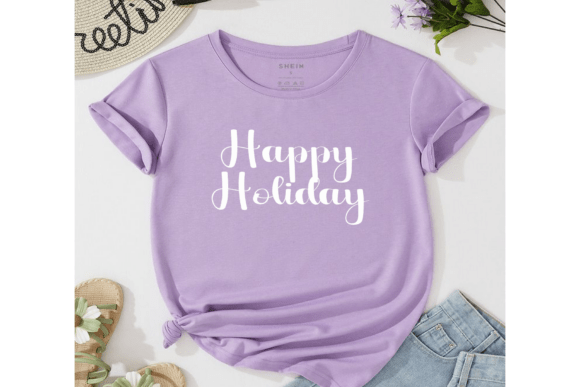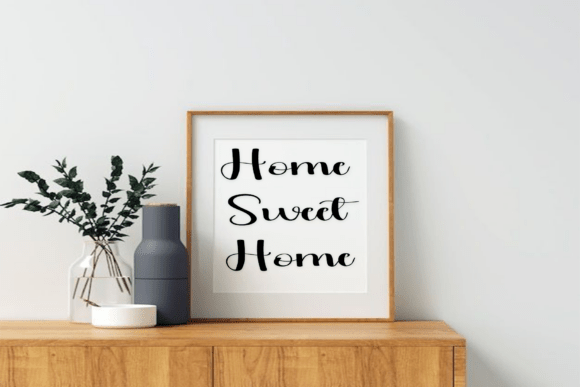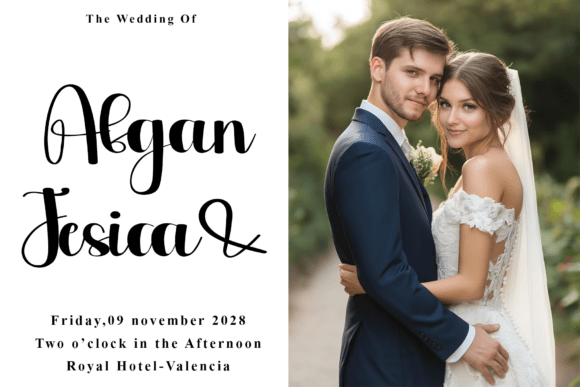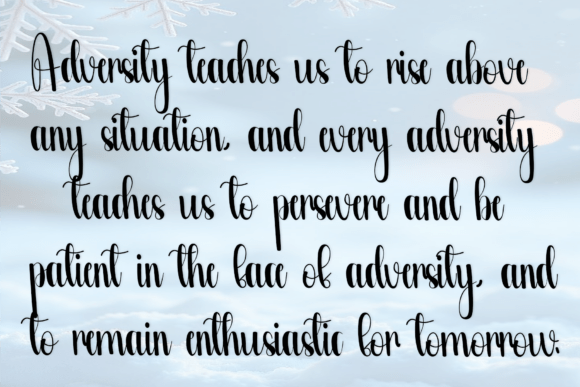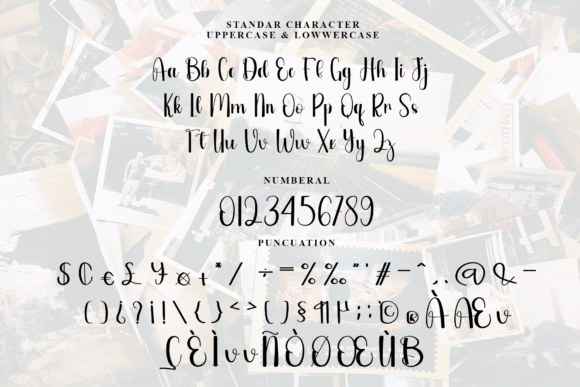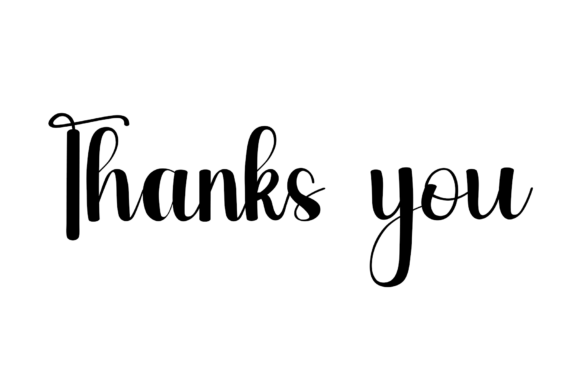
The Perfect Blend of Elegance and Authenticity
Have you ever found yourself sitting in a quaint little café, sipping a warm cup of coffee, and staring at the beautiful handwritten script on the menu board? The way the words flow effortlessly, like a gentle stream, has a way of captivating your attention and drawing you in. That’s the kind of magic that the Homestay Font brings to the table.
This stunning modern handwritten script font is designed to evoke a sense of sophistication and elegance, making it perfect for personal branding, photography watermarks, luxury wedding stationery, and any project that requires a touch of luxury. As a designer, you’ll appreciate the versatility and uniqueness of Homestay Font, which can add a personal touch to your designs and set you apart from the rest.
Key Features of Homestay Font
- Unique Characteristics: This font features a warm, inviting aesthetic, perfect for creating a welcoming atmosphere in hospitality and travel-related designs.
- Font Styles: The font family includes multiple styles, including Regular, Bold, Italic, and Bold Italic, offering versatility for various design needs.
- Language Support: Homestay Font supports multiple languages, including English, Spanish, French, German, Italian, and more, making it a great choice for global brands and businesses.
Design Review: Homestay Font
Overall, I think Homestay Font has some great qualities, but it’s not without its limitations.
- The font’s friendly and approachable feel makes it perfect for design projects that require a warm and inviting tone.
- The font’s versatility allows it to work well in both digital and print formats.
- The font’s subtle texture adds a unique touch to designs and helps to create visual interest.
- The font’s texture can sometimes feel overpowering, making it difficult to read in certain situations.
- The font’s style may not be suitable for all design projects, particularly those that require a more formal or professional tone.
- The font’s character set is somewhat limited, which may make it difficult to use in certain languages or for projects that require a wide range of characters.
While Homestay Font has its limitations, I think it’s a great addition to any designer’s toolkit. With a little creativity and experimentation, it can be used to create some truly unique and effective designs. Just be aware of its limitations and use it thoughtfully.
The Homestay Font is ideal for use in travel-related projects, such as:
– Travel brochures
– Hotel websites
– Tour operator marketing materials
– Travel blog posts
Tips for getting the most out of the Homestay Font include:
– Using it in combination with other travel-themed fonts for a cohesive look.
– Experimenting with different font sizes and colors to create visual interest.
– Pairing the font with high-quality images of destinations to create an engaging visual experience.
Alternatives to Homestay Font for Designers
Montserrat is a sans-serif font designed by Julieta Ulanovsky, perfect for modern designs that require a clean and minimalist look. Use Montserrat for digital products, apps, and websites where readability is crucial.
Compared to Homestay Font, Montserrat is more geometric and has a stronger grid system, making it ideal for digital interfaces. Homestay Font, on the other hand, has a more organic feel with rounded edges.
Lato is a modern sans-serif font designed by Łukasz Dziedzic, suitable for a wide range of designs, from corporate to creative projects. Use Lato for designs that require a balance between modernity and readability.
Lato is more versatile than Homestay Font, with a larger character set and more font styles available. Homestay Font is more limited in its styles, but has a unique, hand-drawn feel that Lato lacks.